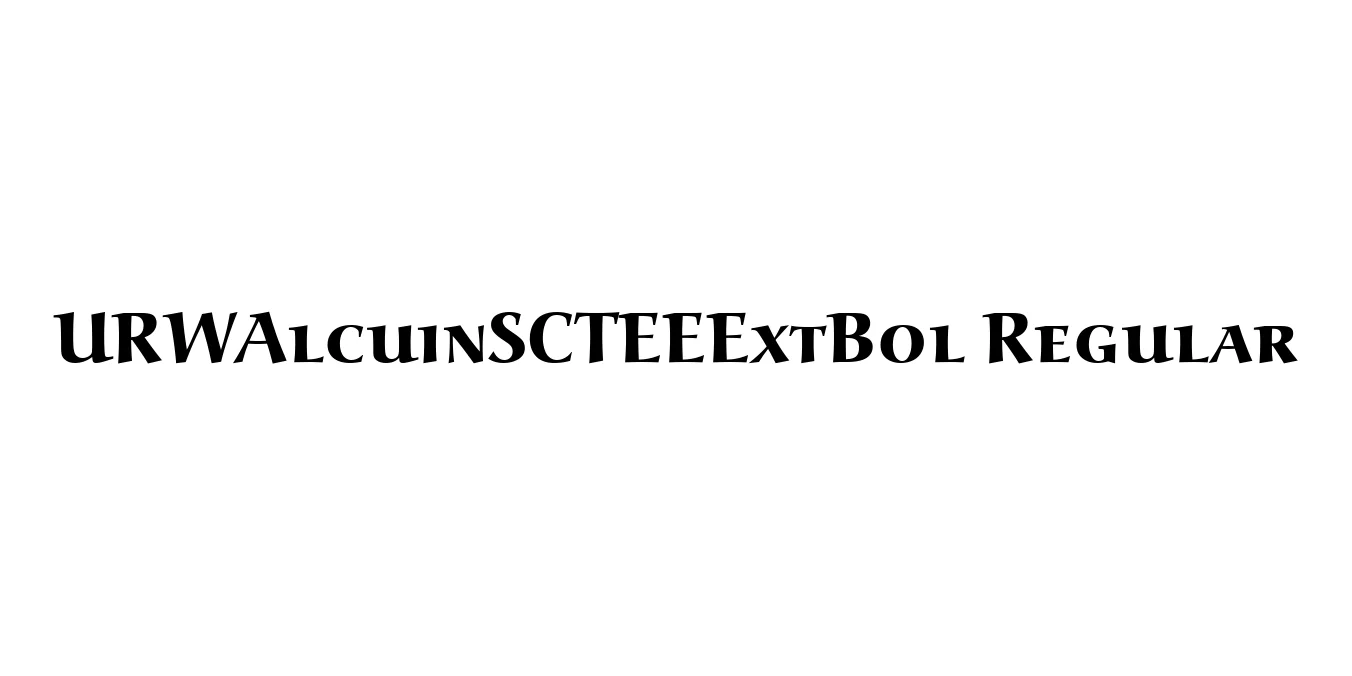
URWAlcuinSCTEEExtBol Regular
Designed by Gudrun Zapf-von Hesse
URW Alcuin was designed by the acclaimed type designer Gudrun Zapf-von Hesse in 1991. The typeface is a modern interpretation of the Carolingian minuscule, a script that flourished during the 8th and 9th centuries under Charlemagne's reign. It combines the organic flow of traditional calligraphy with the structured requirements of digital typesetting, resulting in a face that is both timeless and highly readable.
The specific variant URWAlcuinSCTEEExtBol Regular features a Bold weight, Extended proportions, and Small Caps (SC), making it a robust choice for emphatic display work. Its historical roots provide an air of academic authority and sophisticated craftsmanship, which is why it remains a popular choice for high-end book design and prestigious branding projects.
URWAlcuinSCTEEExtBol Regular Best Uses
Perfect for title pages, headers, and chapter openers in literary or historical publications.
Ideal for logos and identities seeking a sense of heritage, tradition, or intellectualism.
Great for formal stationery and certificates that require a classic, hand-lettered feel.
The bold and extended nature makes it striking for large-scale museum or gallery signage.